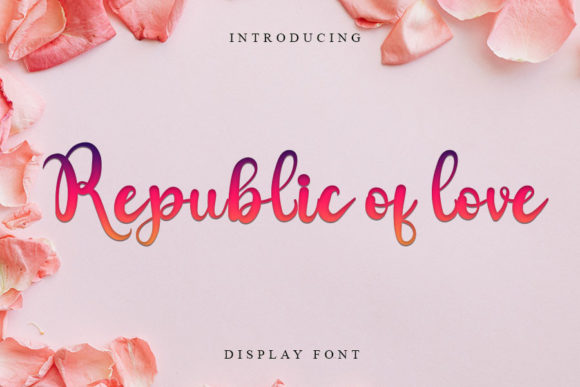
Introducing the Republic of Love Font, your key to creating enchanting designs this Christmas! This exquisite script font was crafted with love, offering a perfect blend of charm and elegance.
Indulge in the intricate swirls and graceful curves that evoke a sense of warmth and joy. Each letter is meticulously designed to capture the festive spirit of the season, making it the ideal choice for your Christmas logo.
With Republic of Love Font, you'll have the power to transform your designs into captivating festive masterpieces. Its versatility extends beyond Christmas, reaching into the realm of crafting, greeting cards, and digital creations.
Unleash your imagination and let the festive typography guide you as you create stunning Christmas designs that will spread cheer and leave an unforgettable impression. Experience the magic of Republic of Love Font today and let your designs shine with festive brilliance!